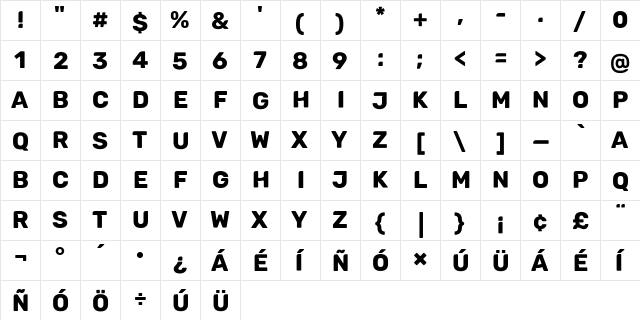
Bold Bold
| Foundry | Hubert & Fischer |
| Designer | Alejo Bergmann |
Design Context for Bold Typeface
Bold offers clean, dependable letterforms without strong stylistic allegiance, making it a practical choice for designers who need flexibility. Its bold stroke weight gives it real presence on the page.
Pro Tip: Pair Bold with a font of contrasting weight or personality to build a more expressive typographic hierarchy.